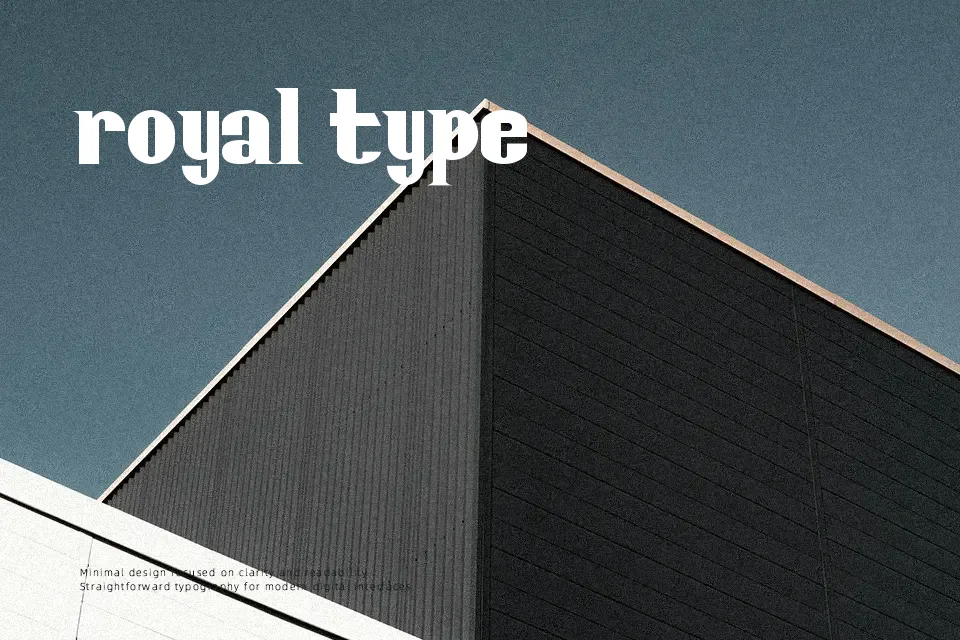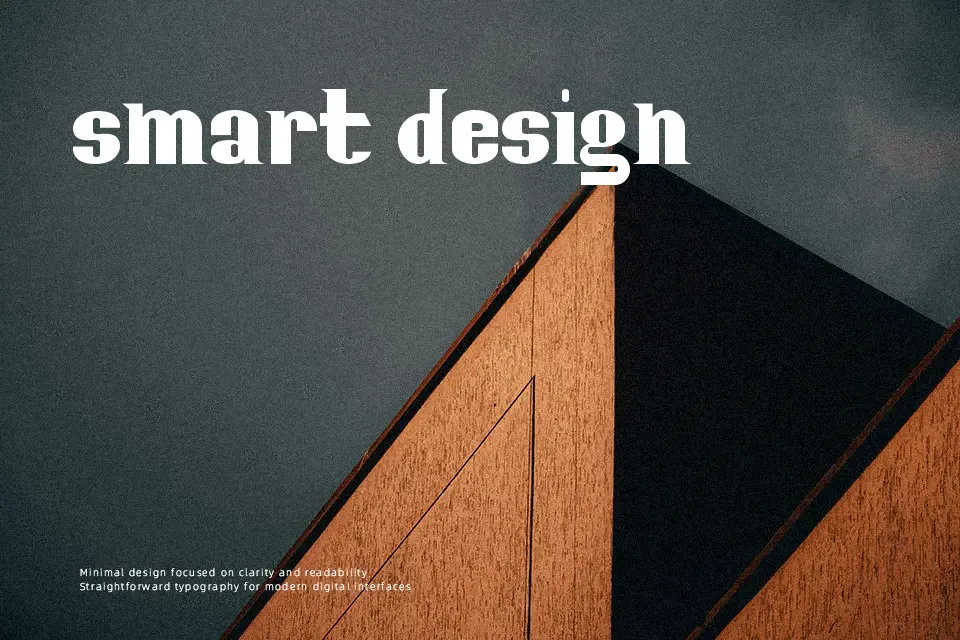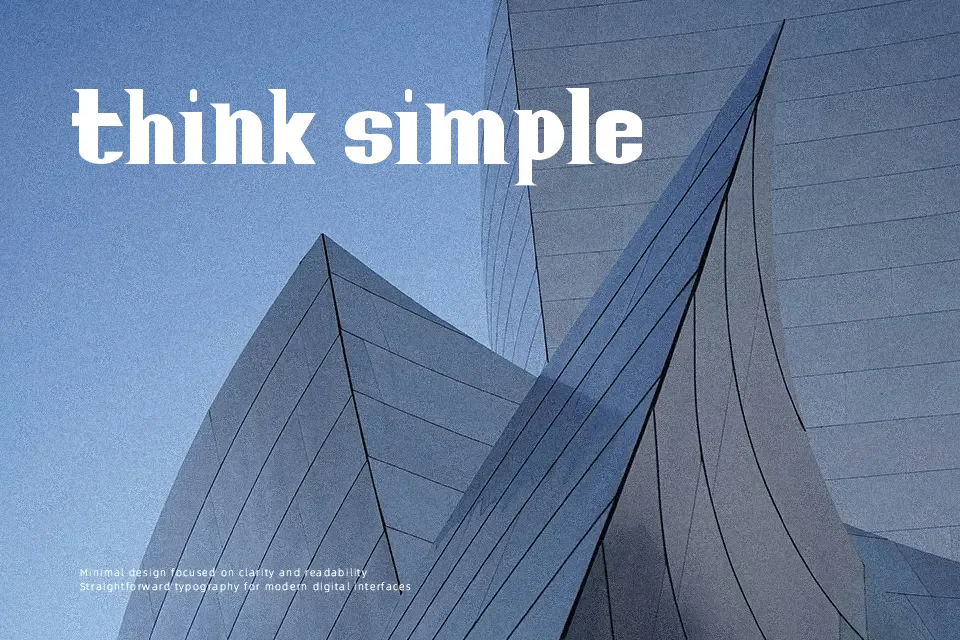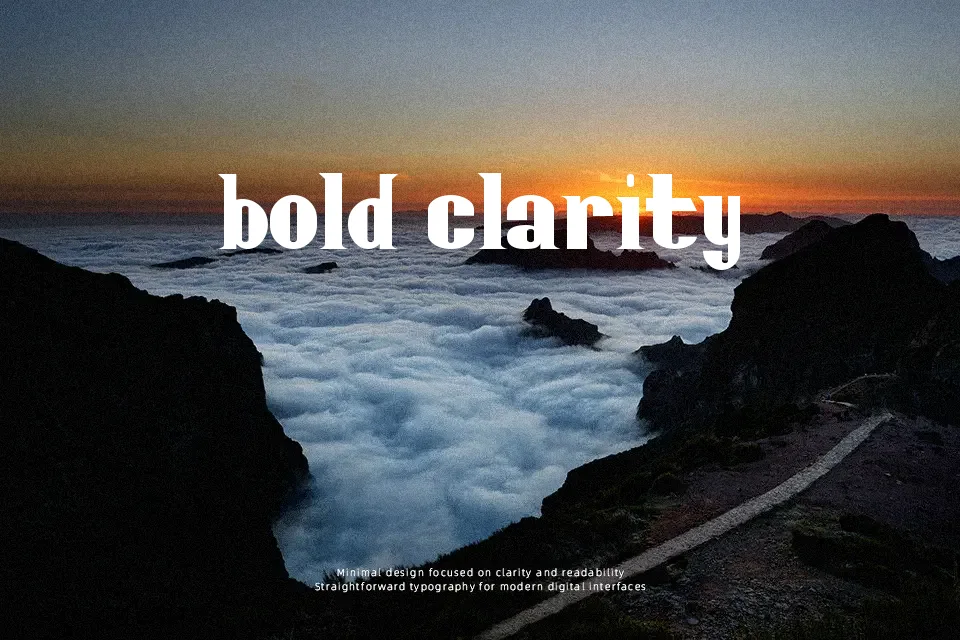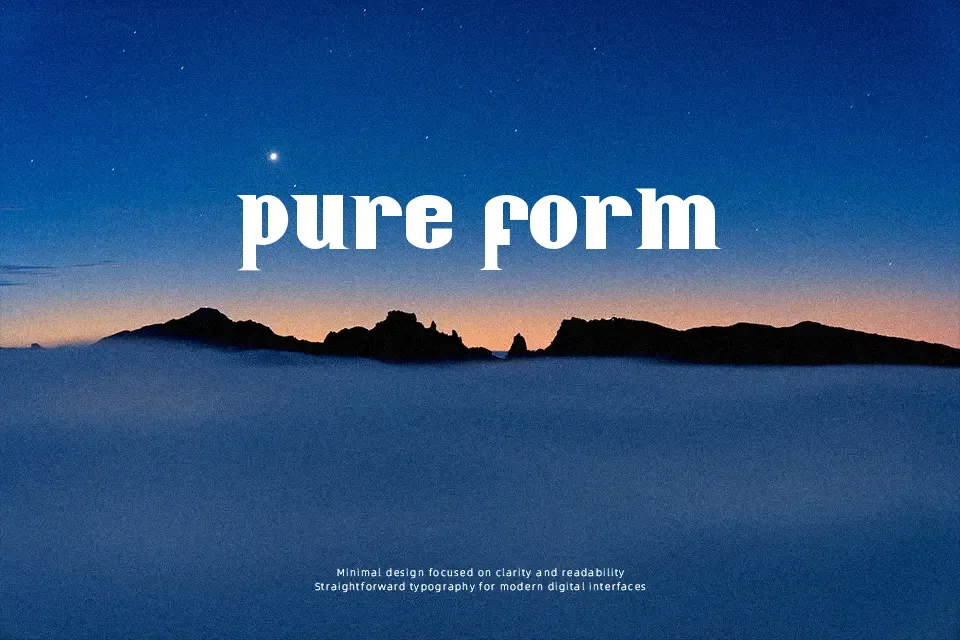
Posterfont Font
Designed by Edgar López
Posterfont Font immediately establishes a commanding presence through its robust, heavily weighted letterforms that easily dominate the canvas. The structure relies on thick, uncompromising strokes combined with compact spacing, creating a dense rhythm that feels highly impactful in display environments. The letterforms remain easy to distinguish in short display text, though the heavy weight reduces internal counter space significantly at smaller scales. Because of this dense structure, the design performs exceptionally well for bold event posters, loud advertising campaigns, and striking packaging headlines. However, the sheer thickness becomes a notable limitation in standard text settings; dense forms reduce comfort during extended reading, making the typeface completely unsuitable for continuous paragraph blocks or small interface labels.
bold event posters, loud advertising campaigns, striking packaging headlines, large billboard graphics
continuous paragraph text, small interface labels, dense editorial layouts, spreadsheet data
Perfect for advertising, branding, and headline, with a bold and decorative style.